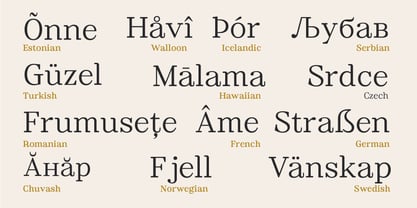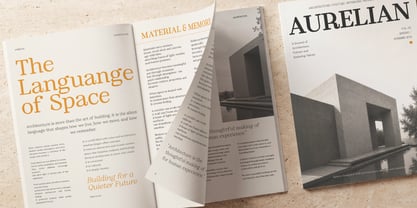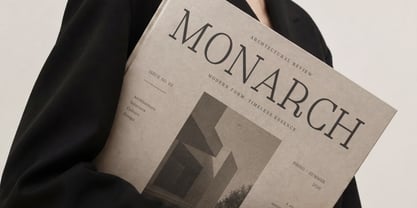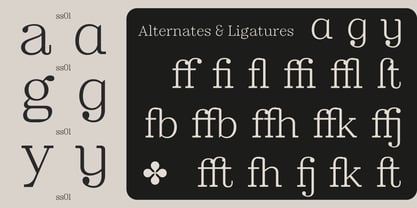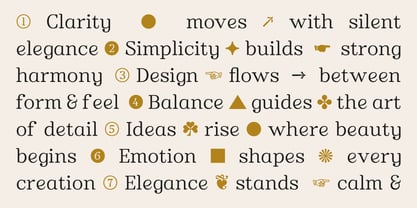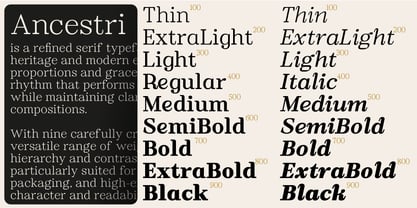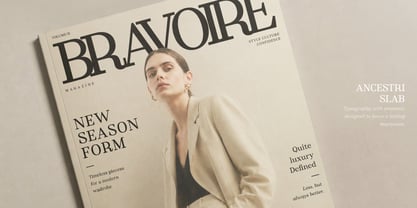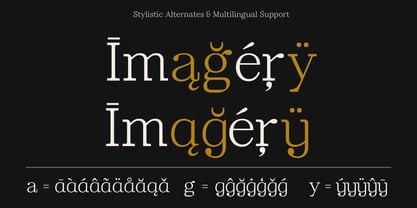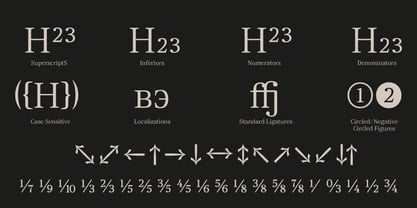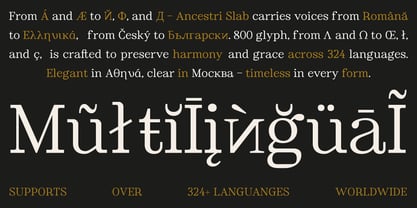
Ancestri Slab
The Ancestri Slab Font Family was designed by Akhmad Hidayat and published by Nollev. Ancestri Slab contains 18 styles and family package options. More about this family
Ancestri Slab is a classic modern slab serif typeface designed with strong structure, refined details, and timeless character. Inspired by architectural forms and contemporary editorial aesthetics, it combines bold presence with elegant readability, making it suitable for luxury branding, editorial layouts, publishing, packaging, posters, and sophisticated visual identities.
The family includes 18 carefully crafted styles with advanced OpenType features such as ligatures and stylistic alternates, allowing designers to create expressive and distinctive typographic compositions. Supporting Latin Extended, Cyrillic, and Greek languages with more than 801 glyphs, Ancestri Slab is built as a versatile and professional type system for both impactful headlines and refined layout design.